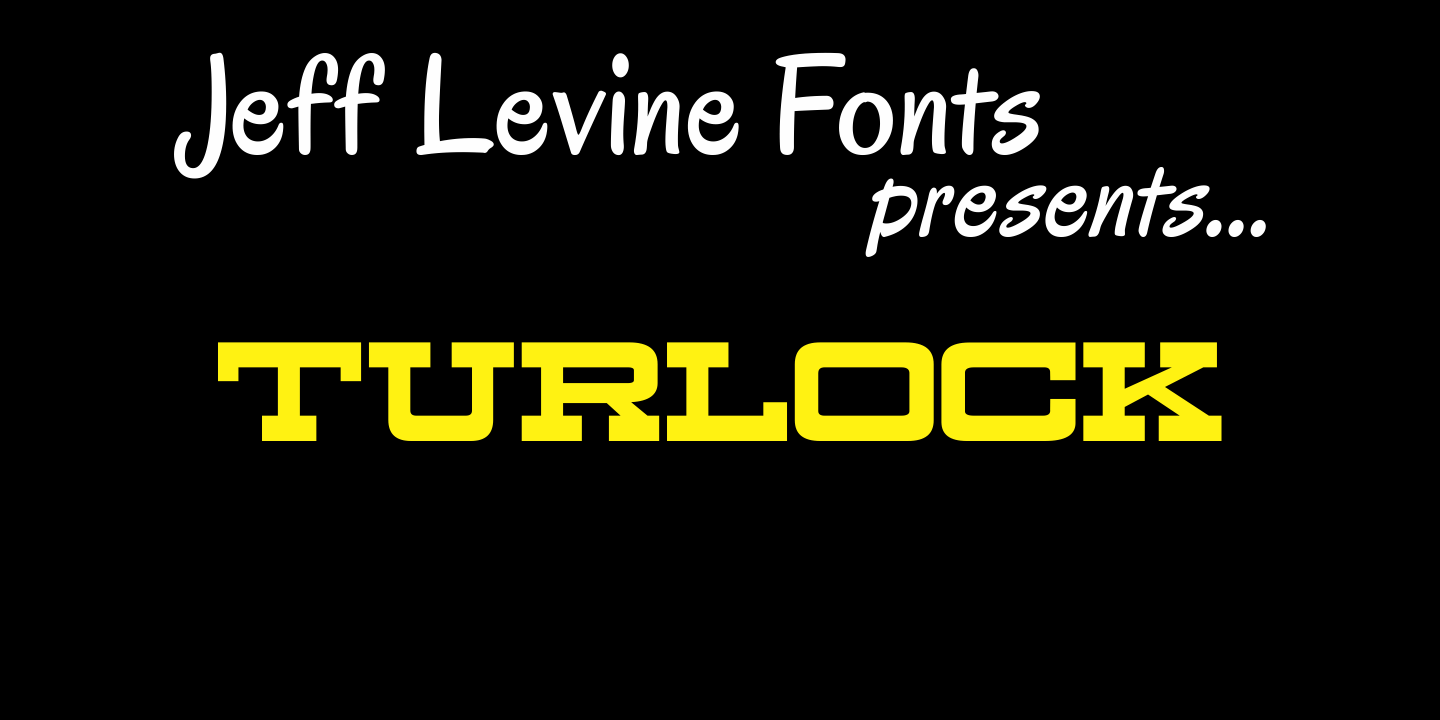
Turlock
Turlock JNL is a more traditional-looking slab-serif Western Font along the line of Brogado JNL.
With its hand-drawn, old-time look and feel, Turlock JNL is perfect for anything with a Western or cowboy motif.